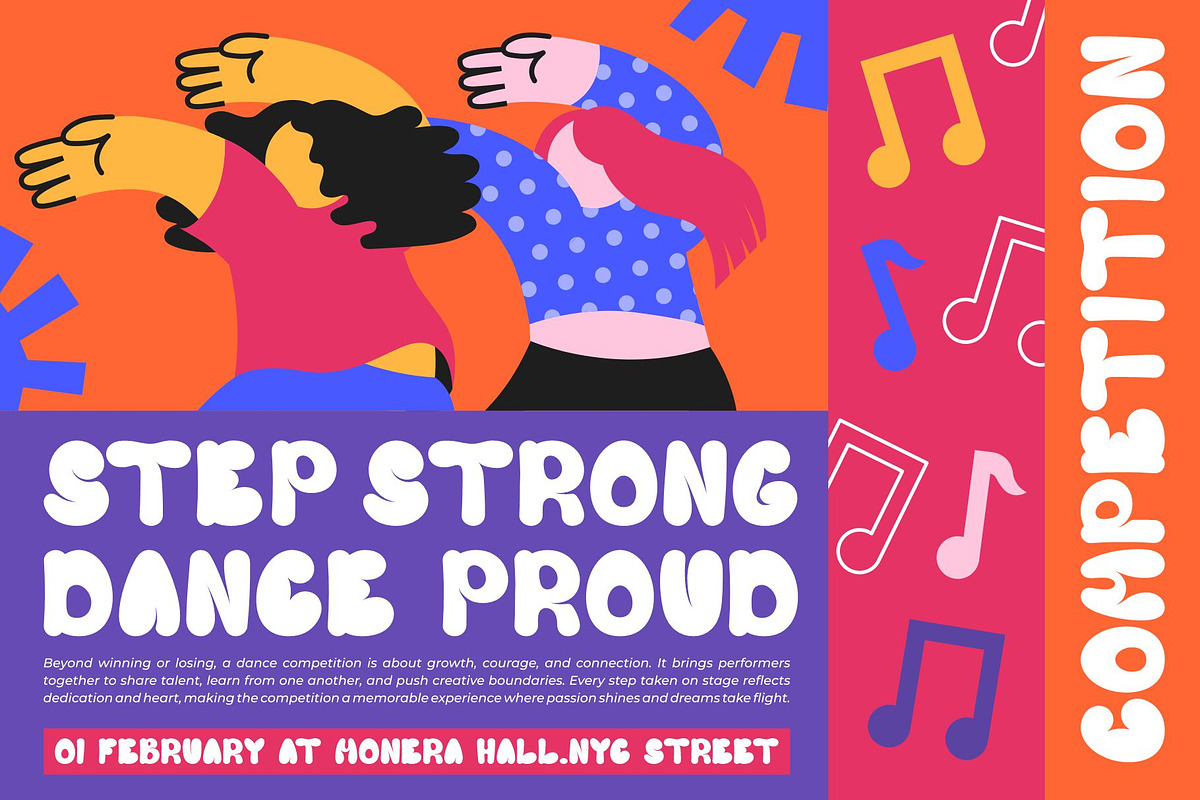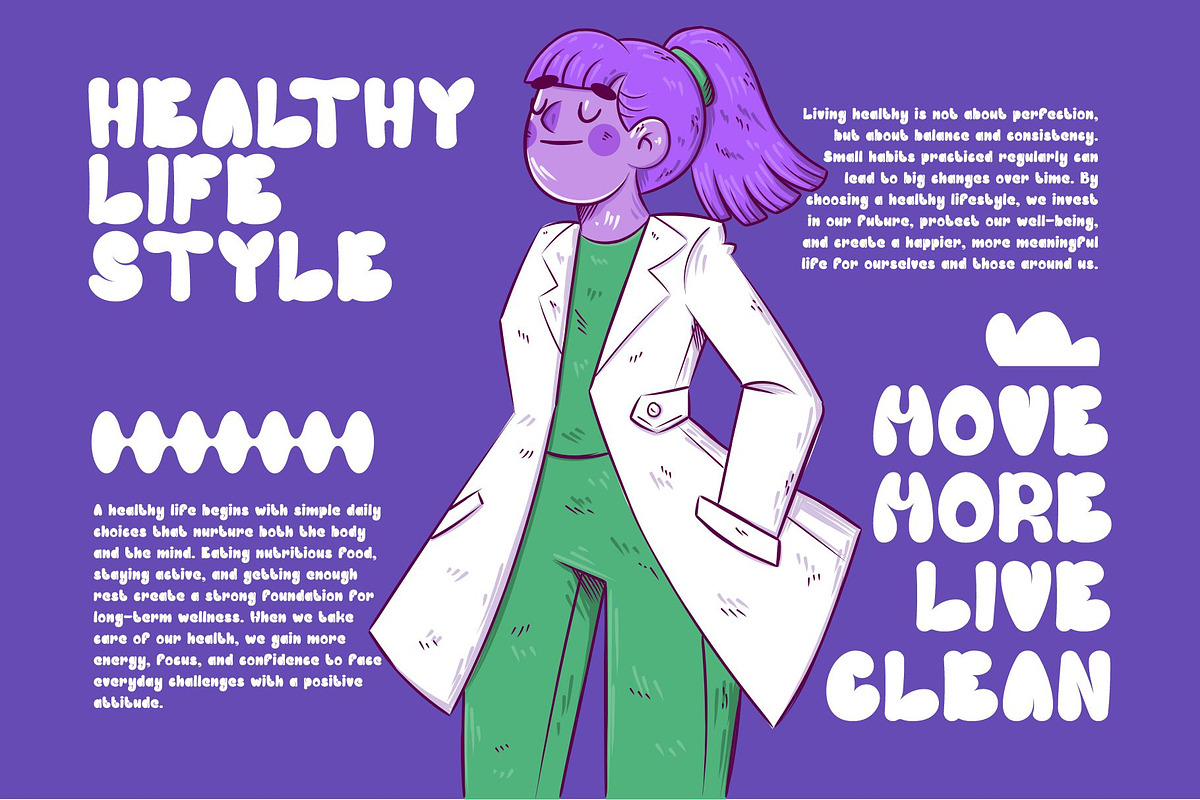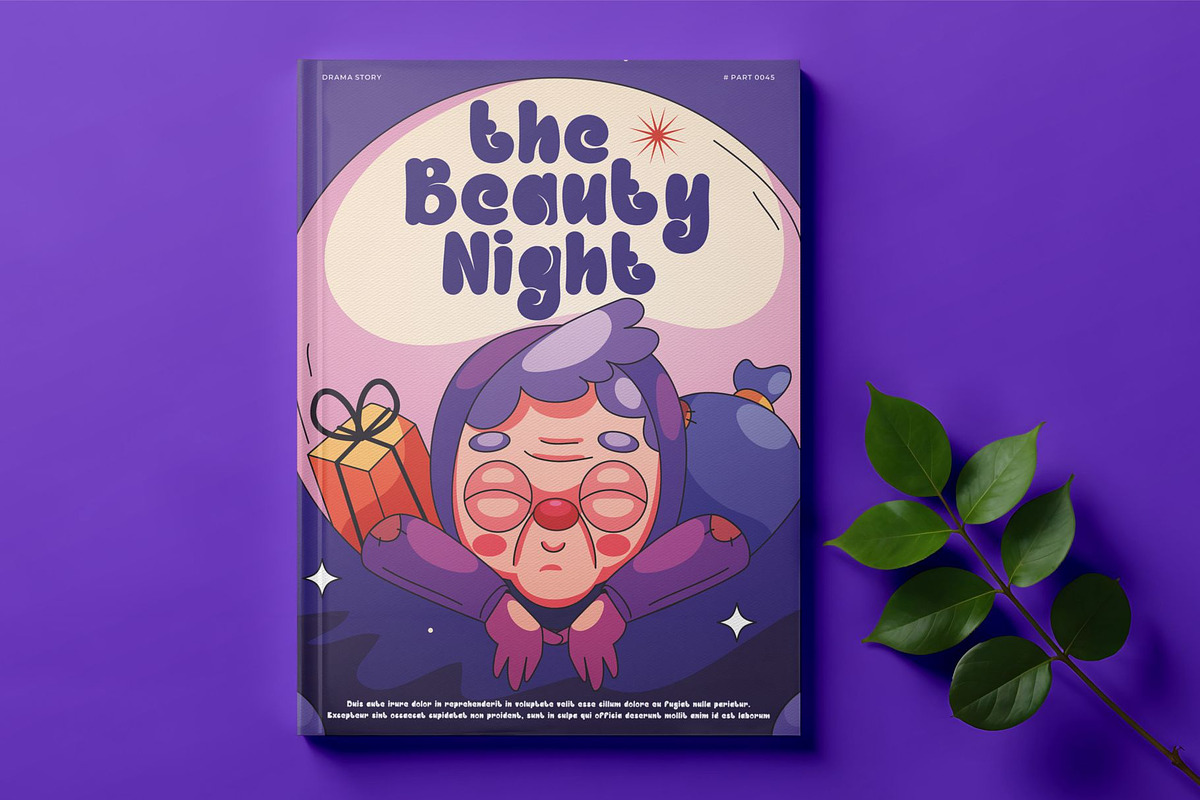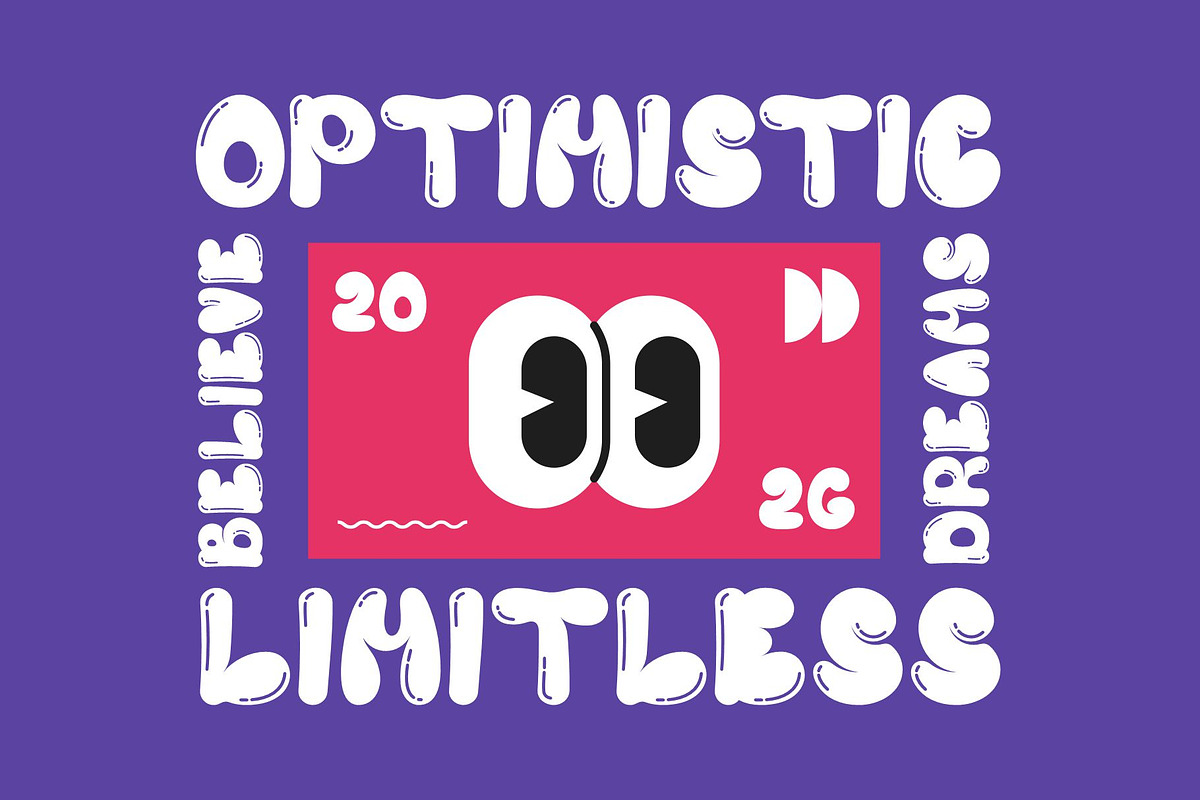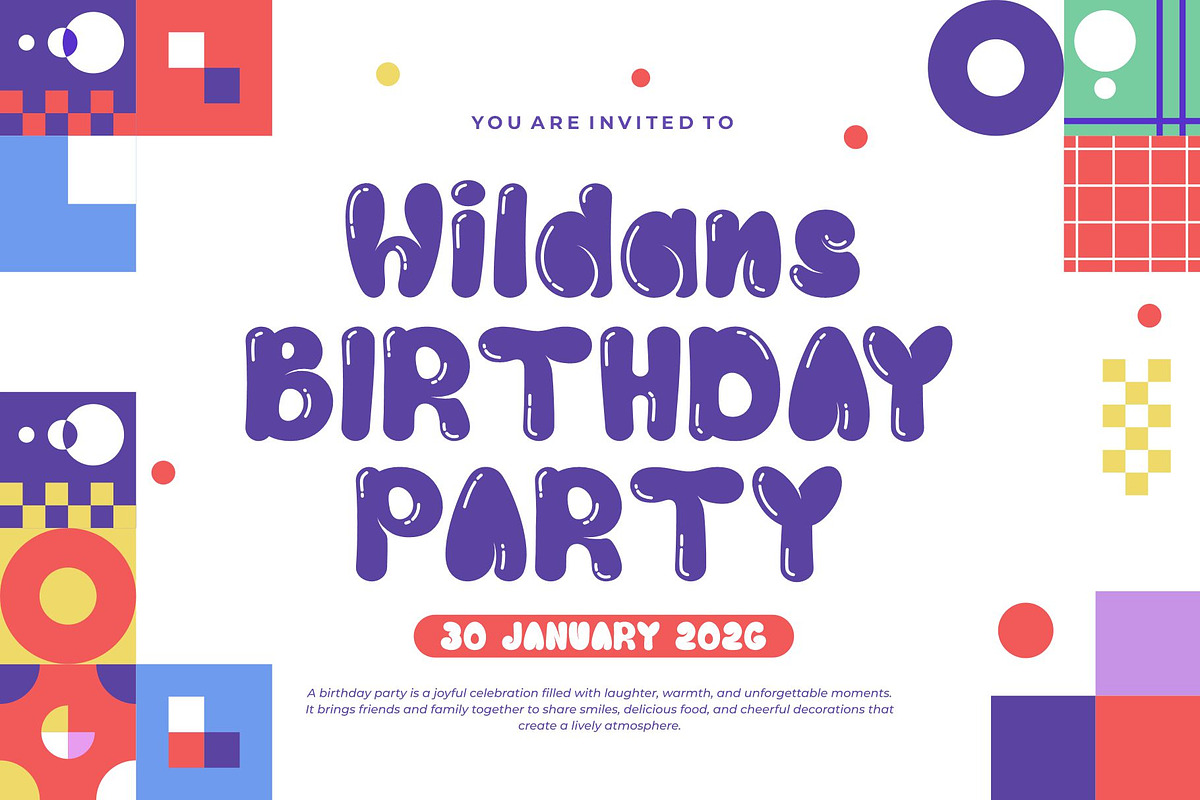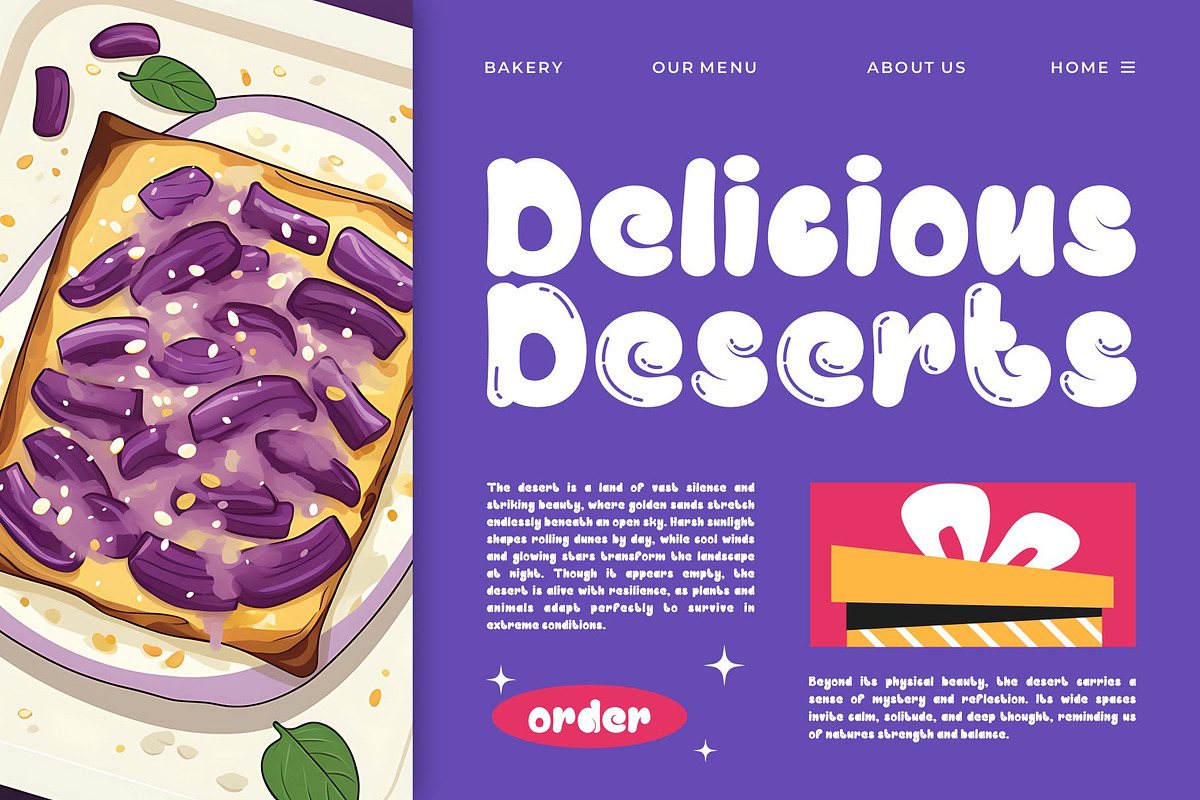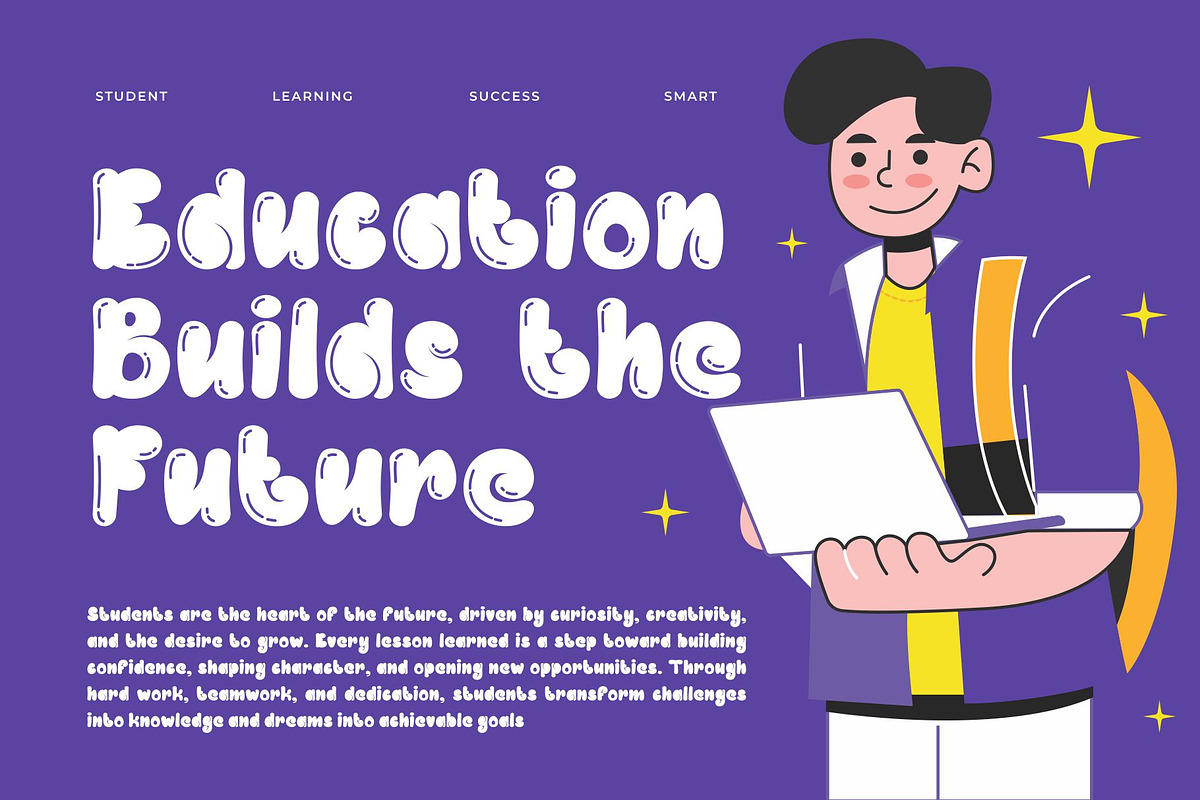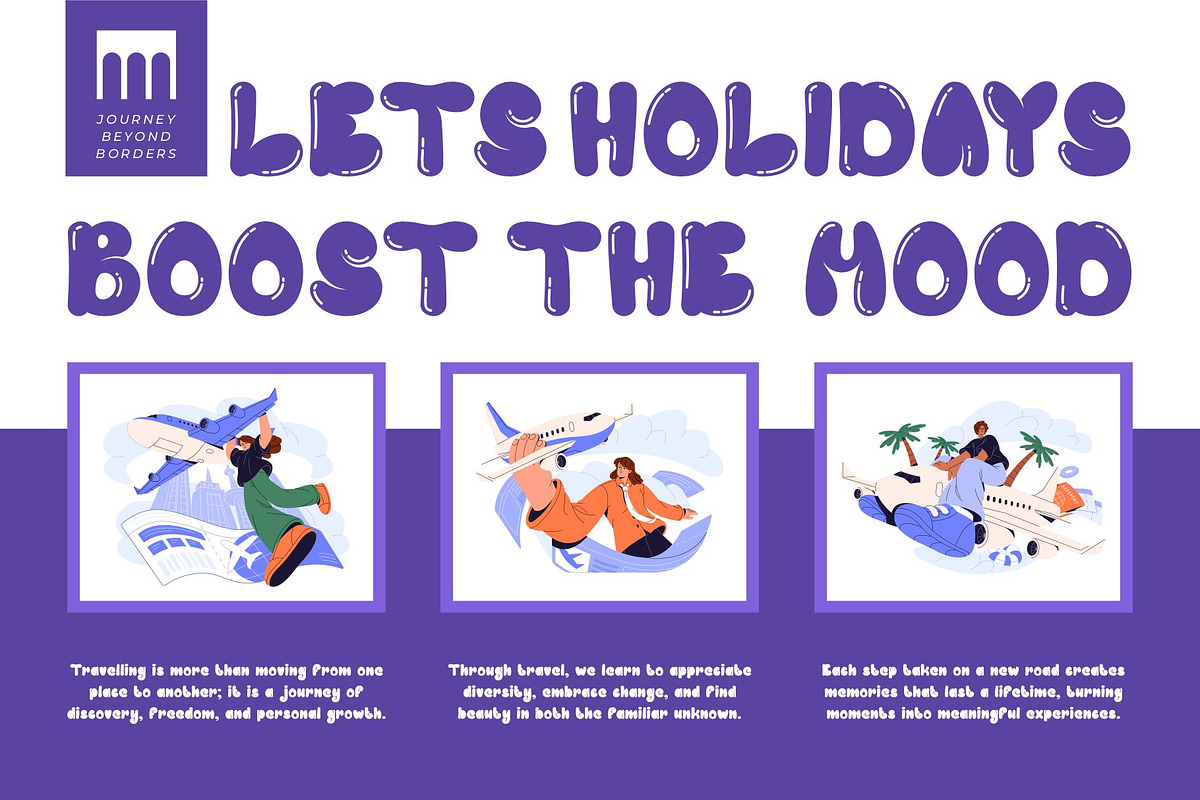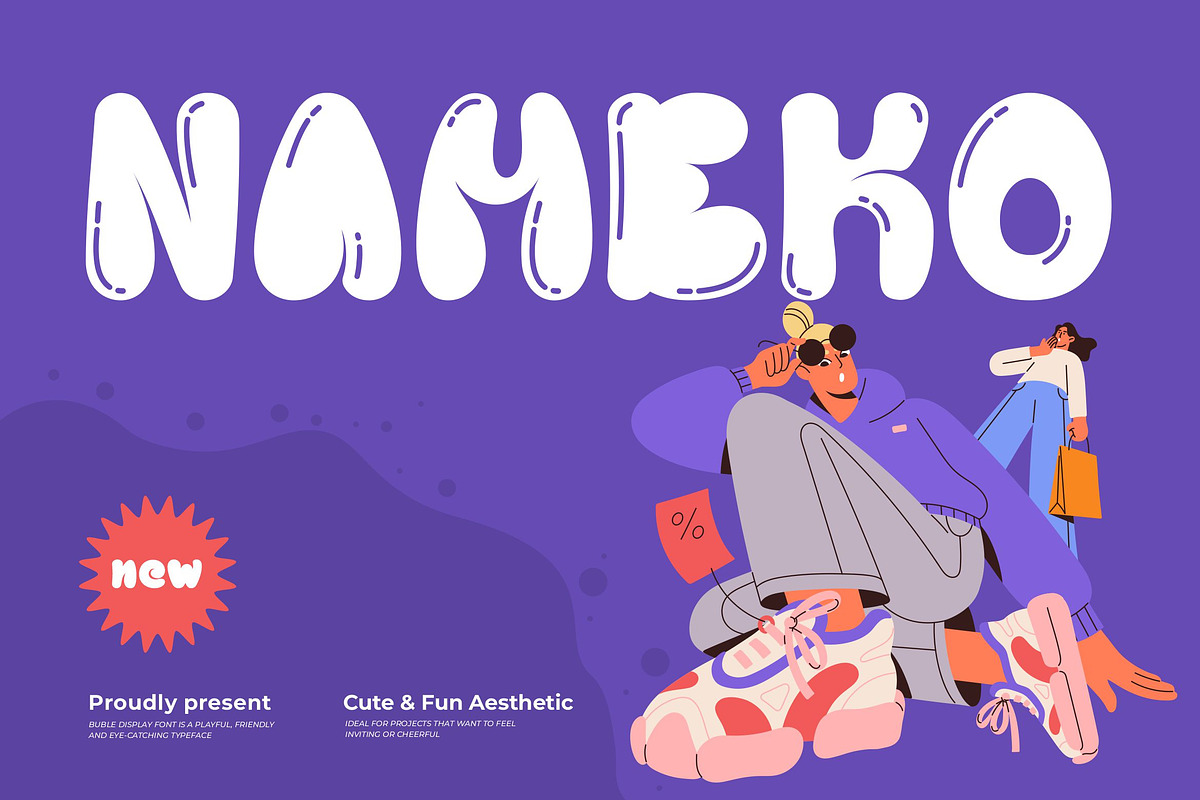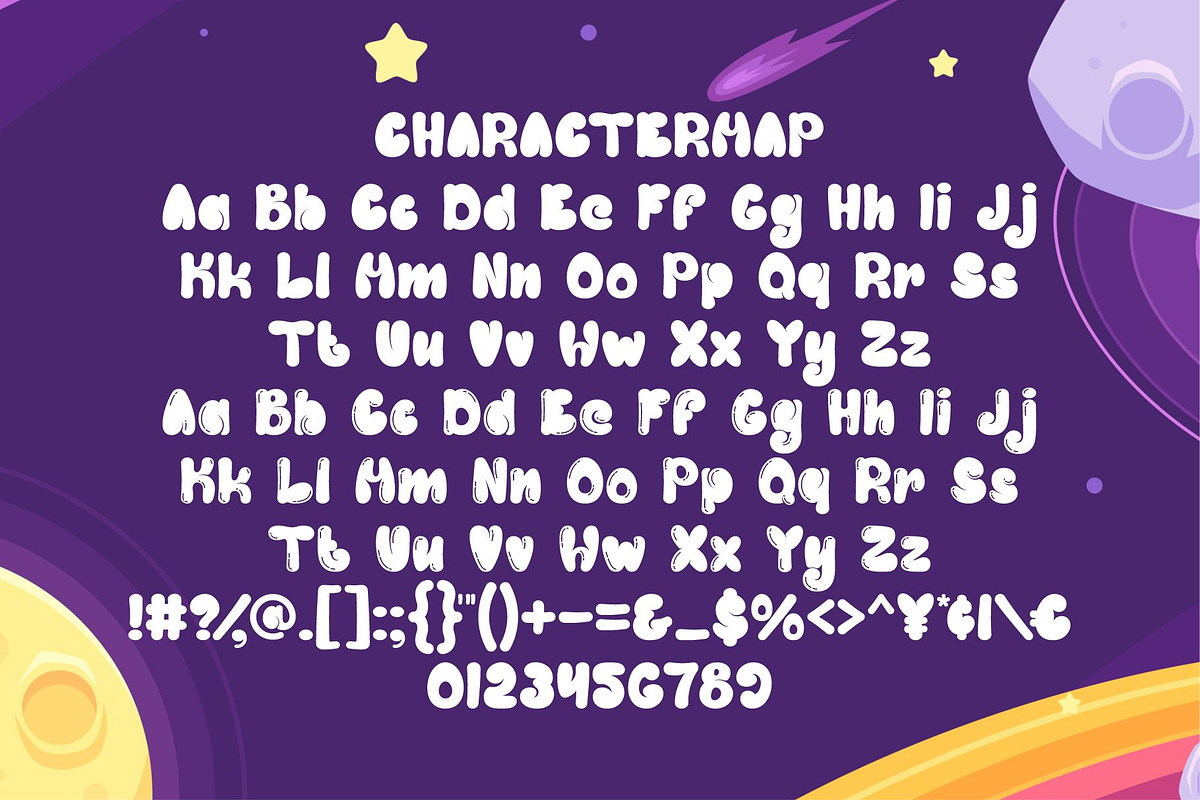
Nameko || Modern Playful Handwritten
Nameko display bubble is a modern and playful font type for all branding and logo designs. This modern and playful display font has a beautiful character. This font is suitable for invitation card designs, cool logos, movie titles, movie names, business cards, book titles, brand names, and various other designs. Nameko display bubble is a smooth display font that exudes sophistication and the moment. Its stylish ligatures make this font a perfect partner for any project.